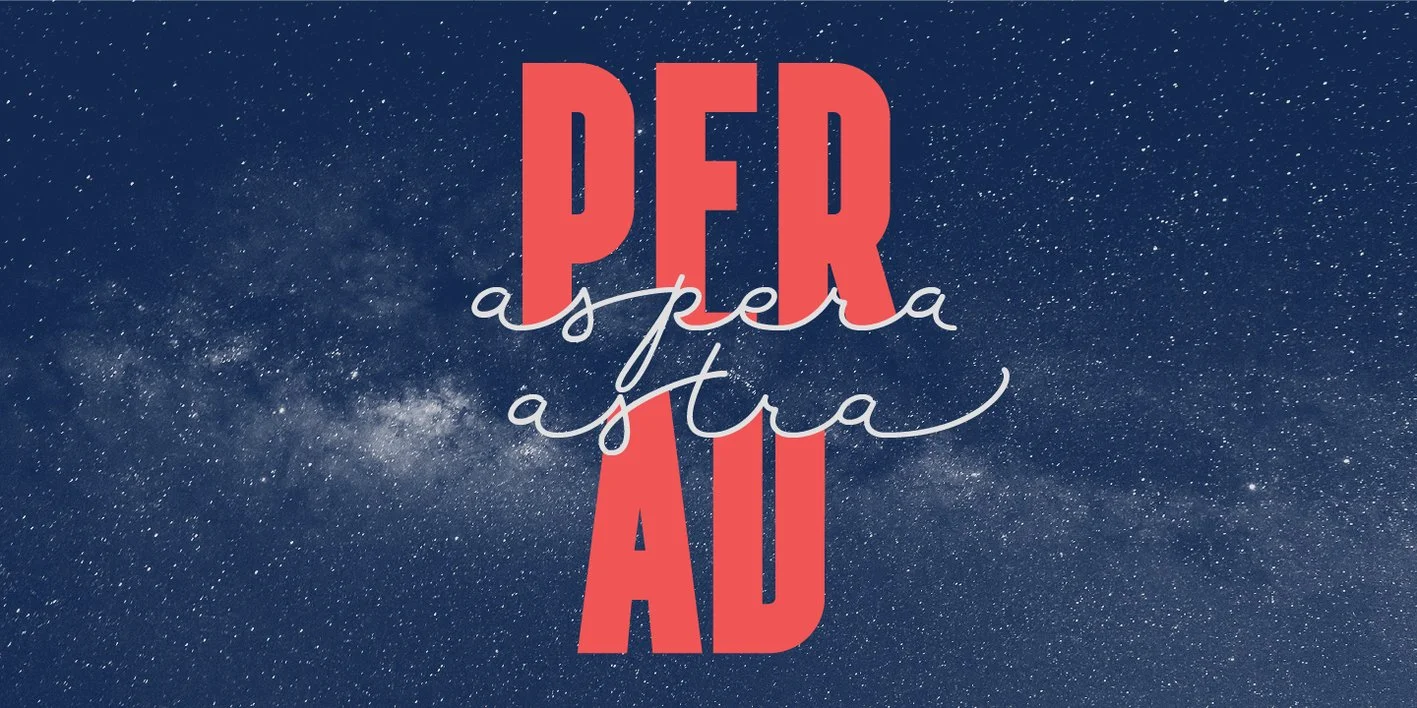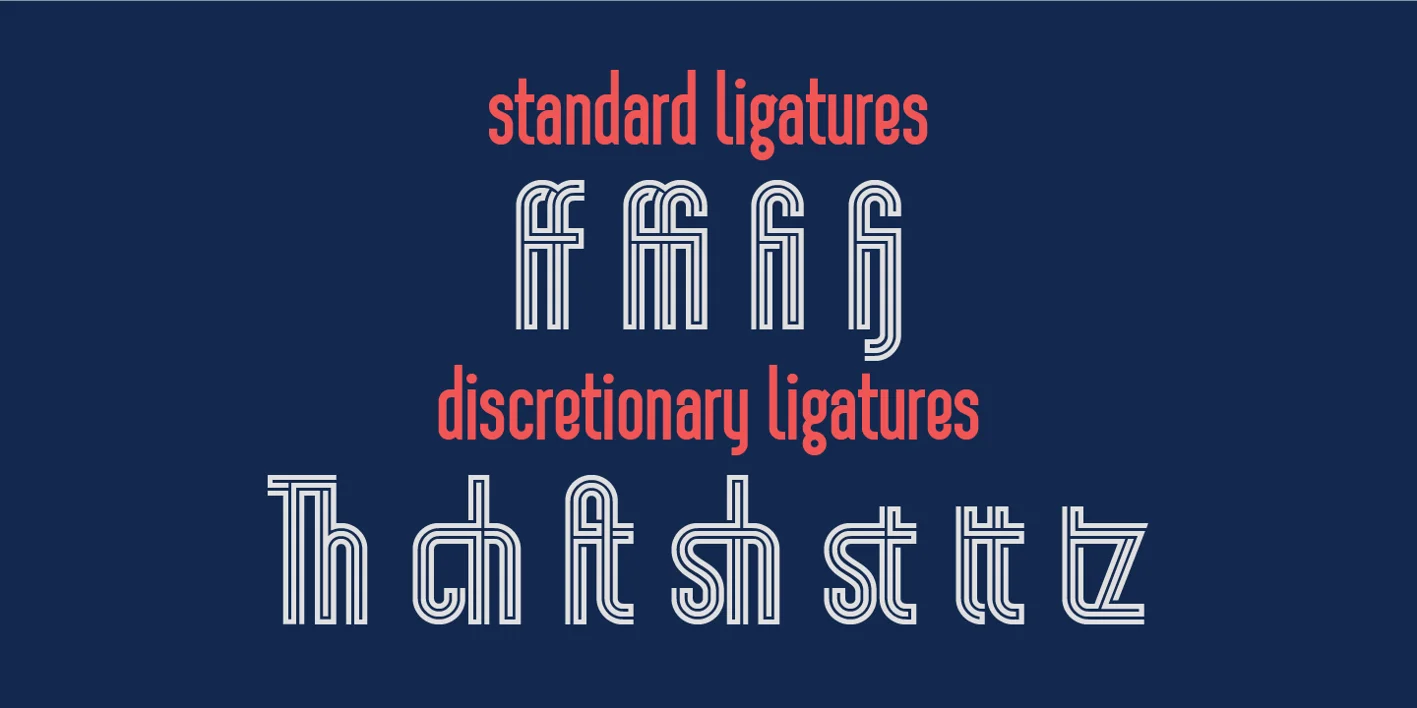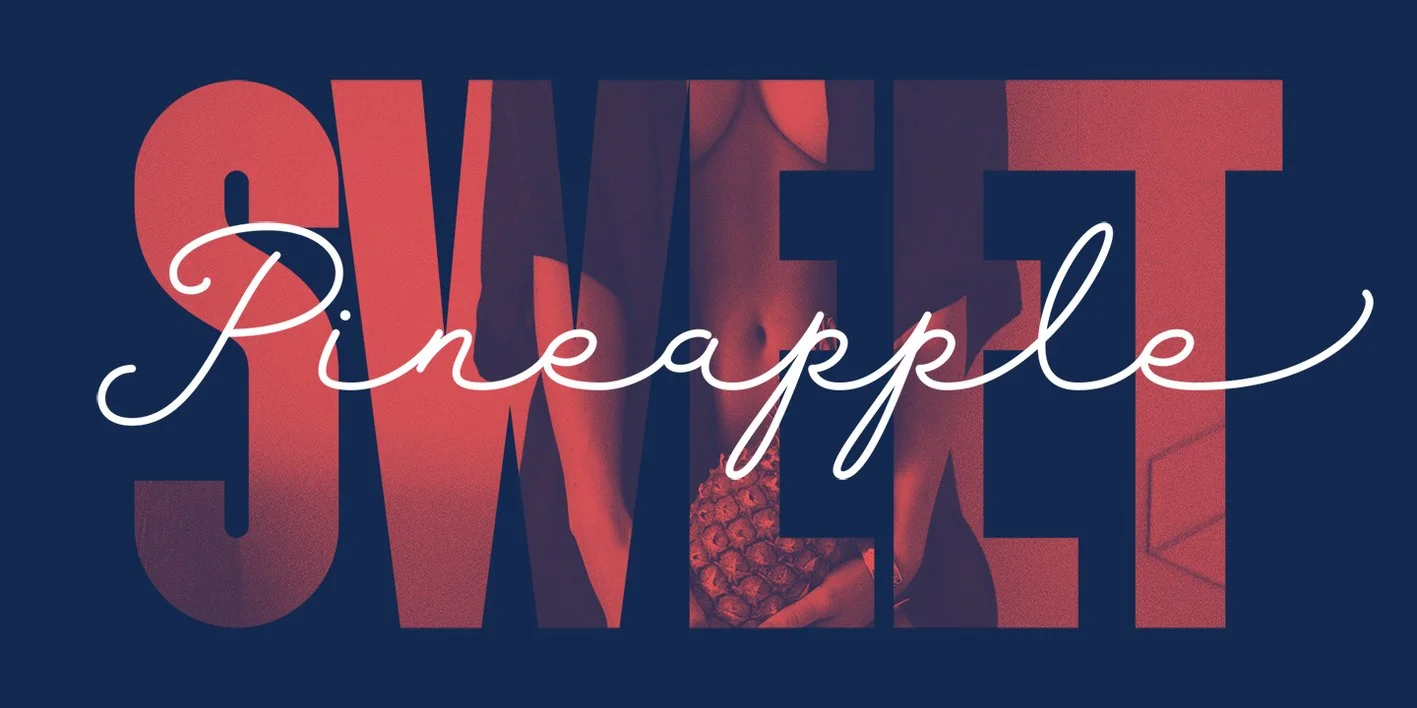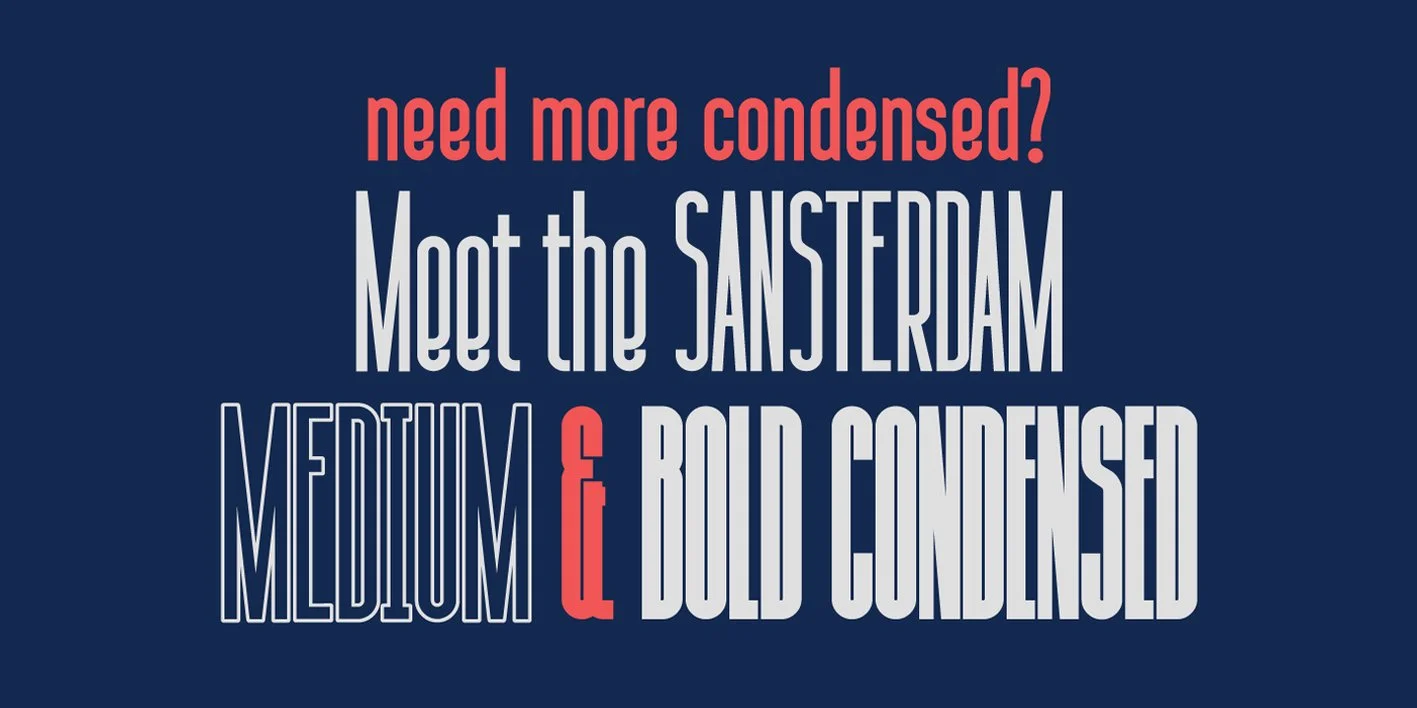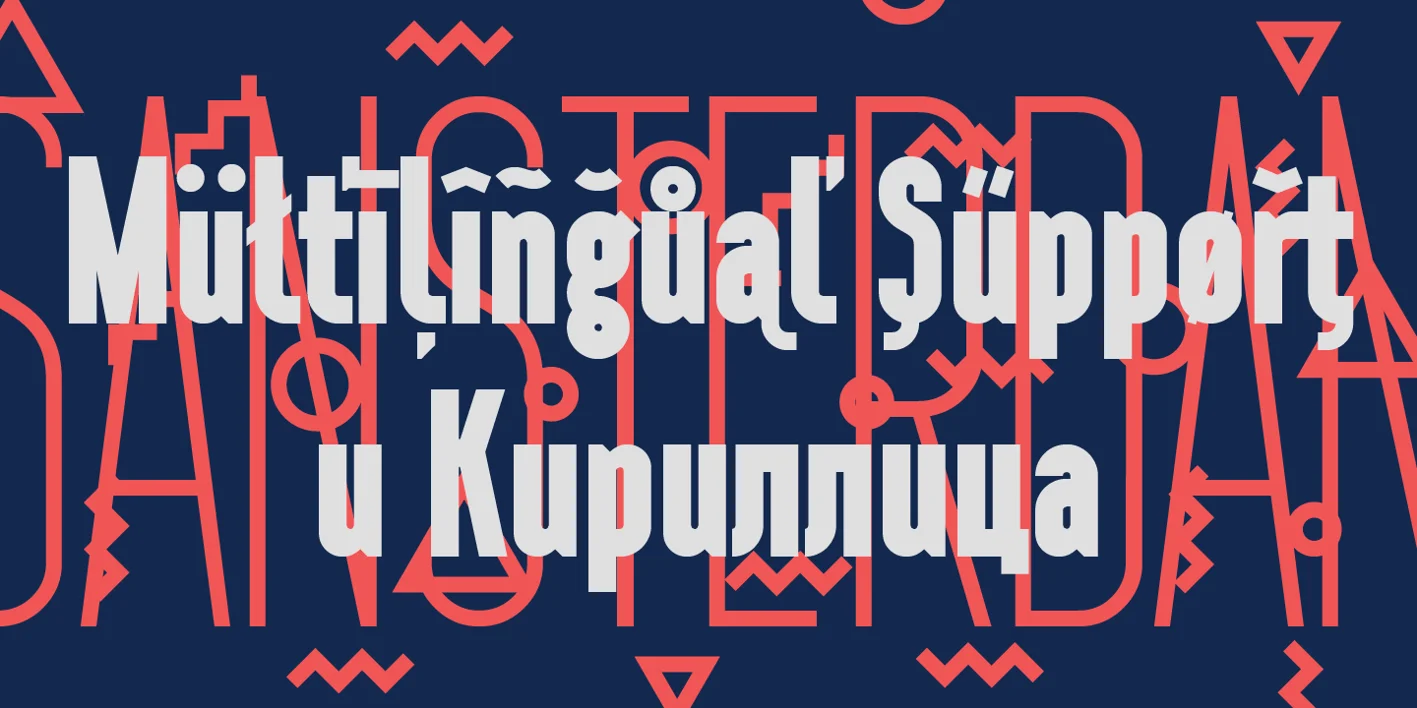
Sansterdam Font
When a design brief calls for both visual harmony and precise spacing and immediate visual impact, type choices matter — Sansterdam answers that brief. The typeface brings a clean, humanist sensibility to a broad range of creative disciplines, with consistent type colour across continuous text that holds up whether the work is print-first or screen-first.
In practice, Sansterdam proves particularly effective for corporate websites, product labels, tech documentation, wayfinding systems, SaaS dashboards. Designers reaching for it find that the type decisions feel resolved rather than laboured — a useful quality when client timelines are tight.
The range of applications extends to app interfaces, logo design, editorial layouts, poster creation. That breadth is deliberate: the proportions and spacing were stress-tested across a wide range of mock briefs before the typeface was finalised.
Unlike geometric sans-serifs built on circles and squares, this design takes its cues from the proportions of classical Roman letterforms, producing a warmth that sustains reader comfort over long passages of text without sacrificing the clean lines expected in modern digital interfaces.
In-house creative teams at consumer brands find Sansterdam a reliable choice for projects that demand both personality and restraint. The design avoids the self-conscious quirkiness that dates quickly, settling instead for considered distinctiveness that holds up over time.